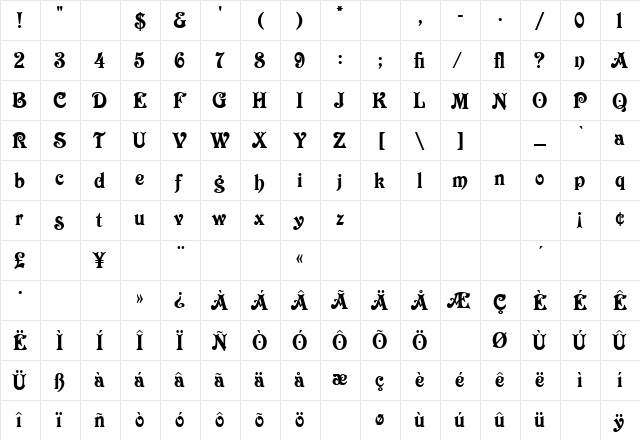
Victorian Nouveau LET Alt Plain
Design Context for Victorian Nouveau LET Alt Typeface
Victorian Nouveau LET Alt is a composed and adaptable typeface that performs quietly and consistently across a wide range of design contexts.